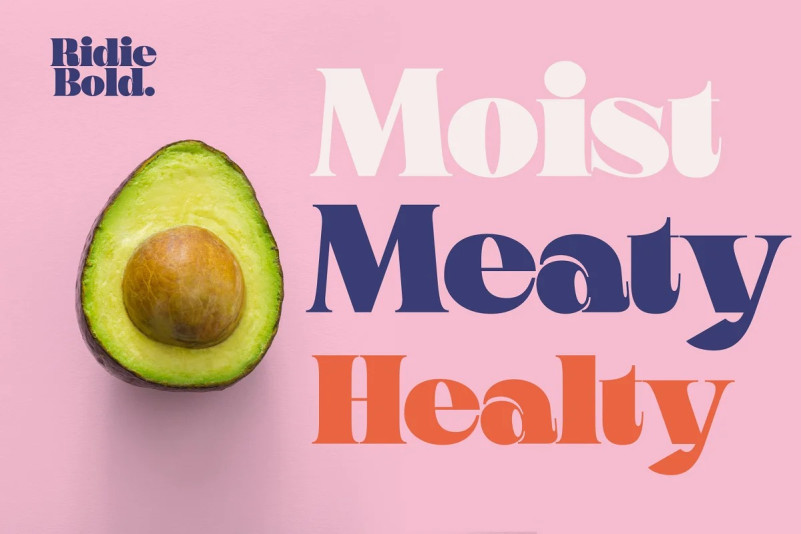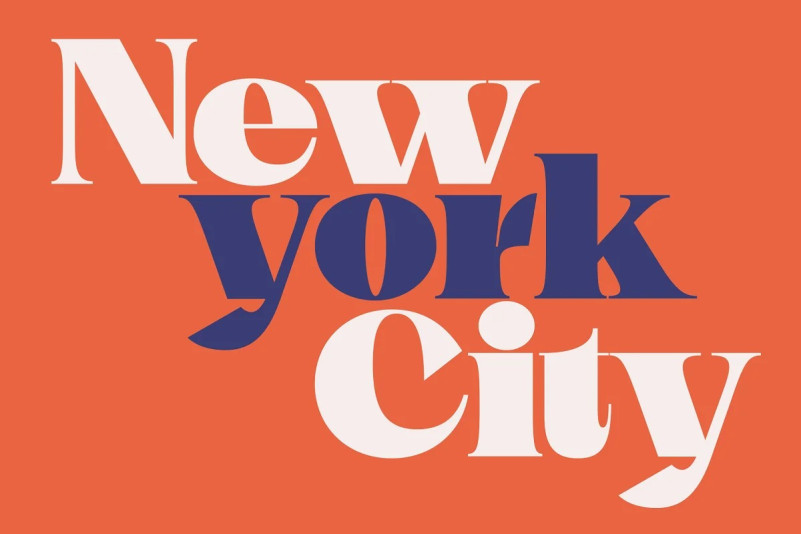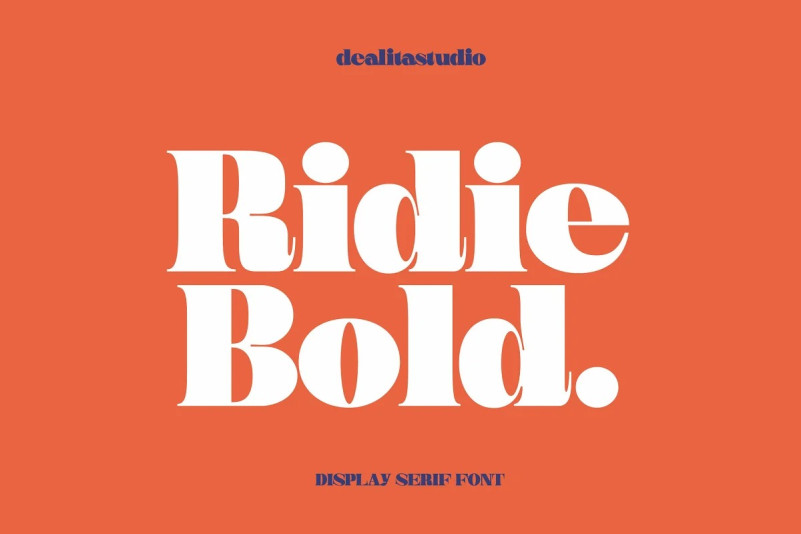
Ridie Font
Ridie Font is a display typeface. It’s bold, fun, and playful. Perfect for you who need a pop style in your design.So don’t wait, make it your font of choice today, and take your designs to the next level!